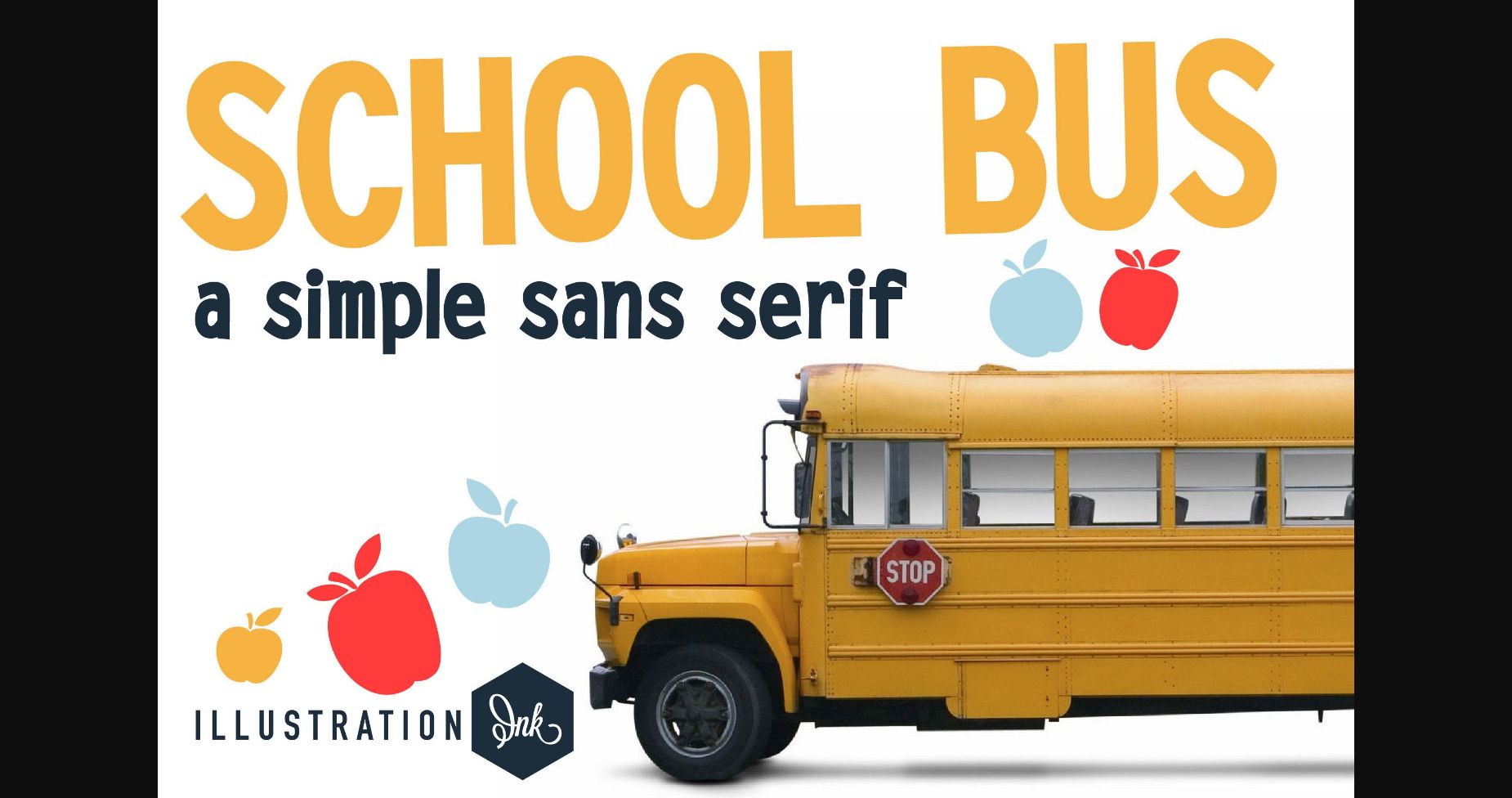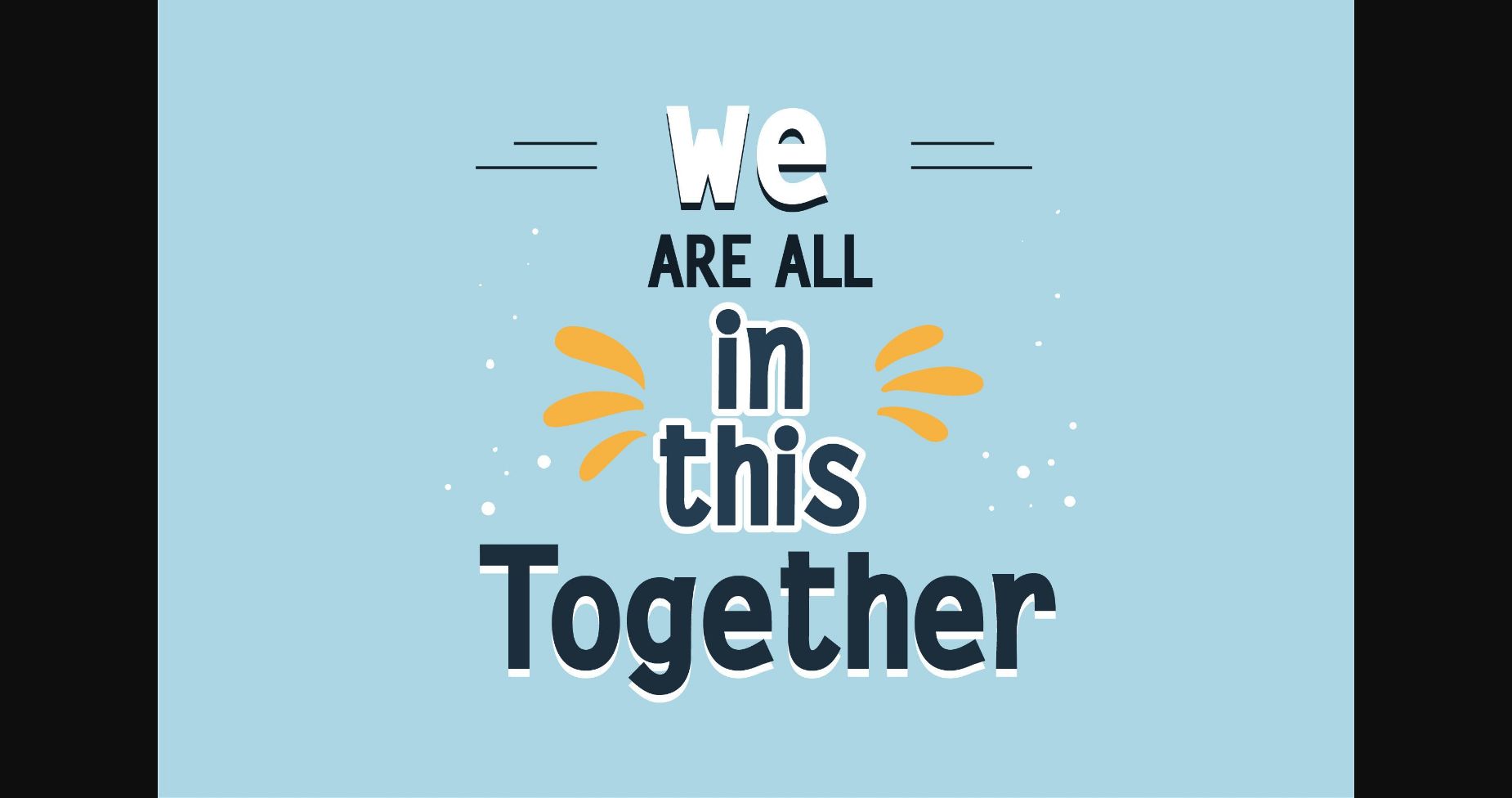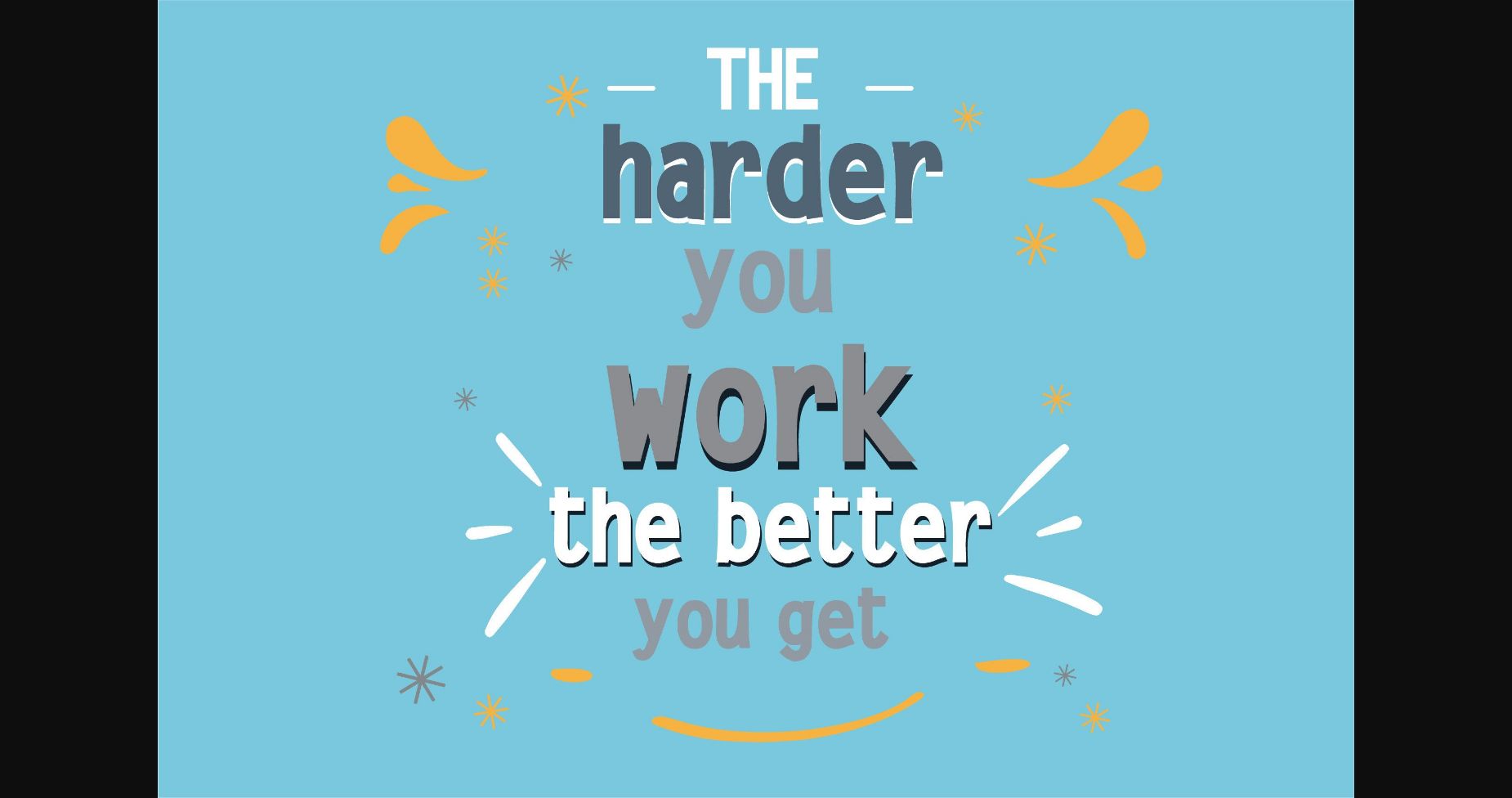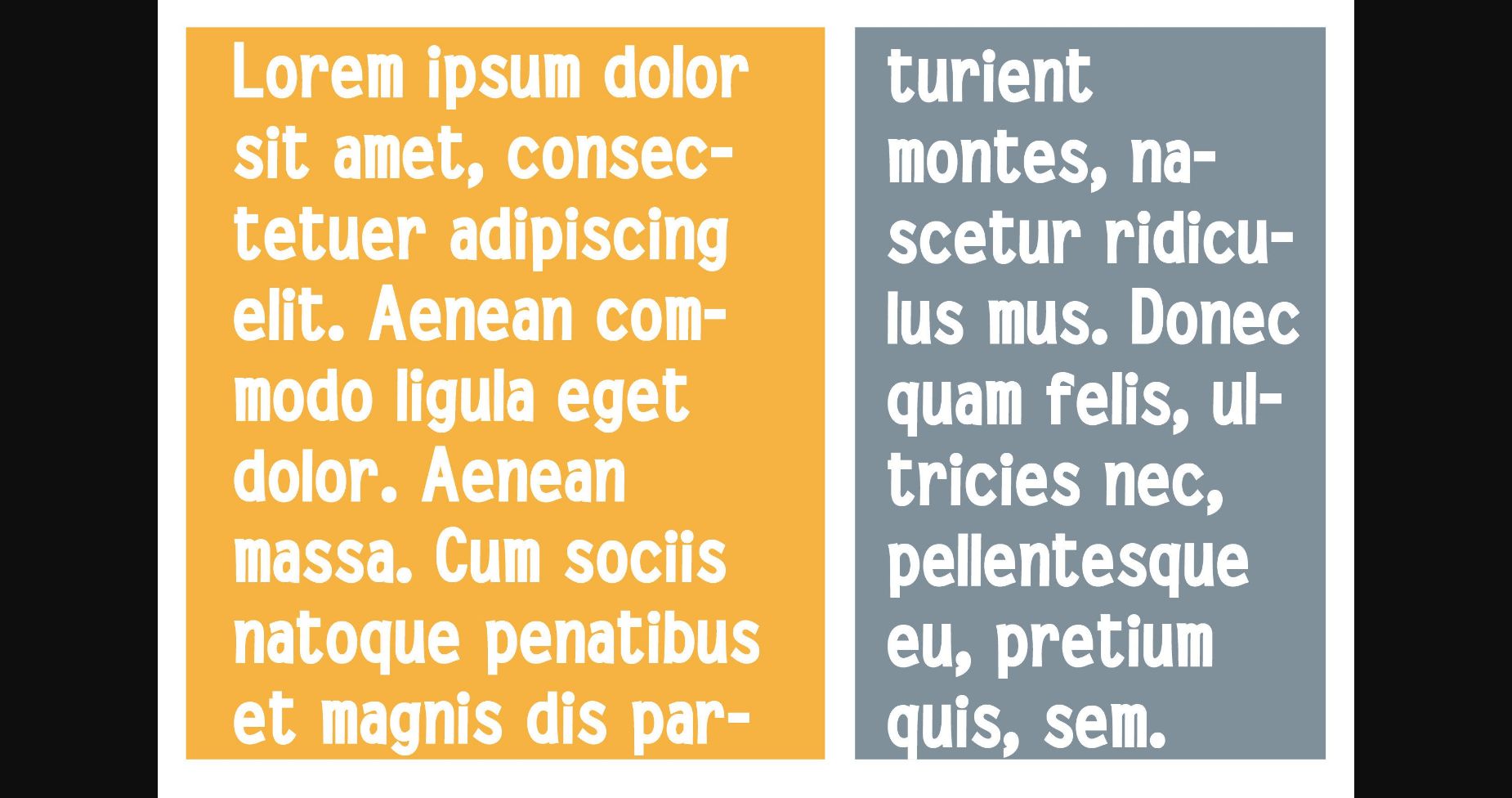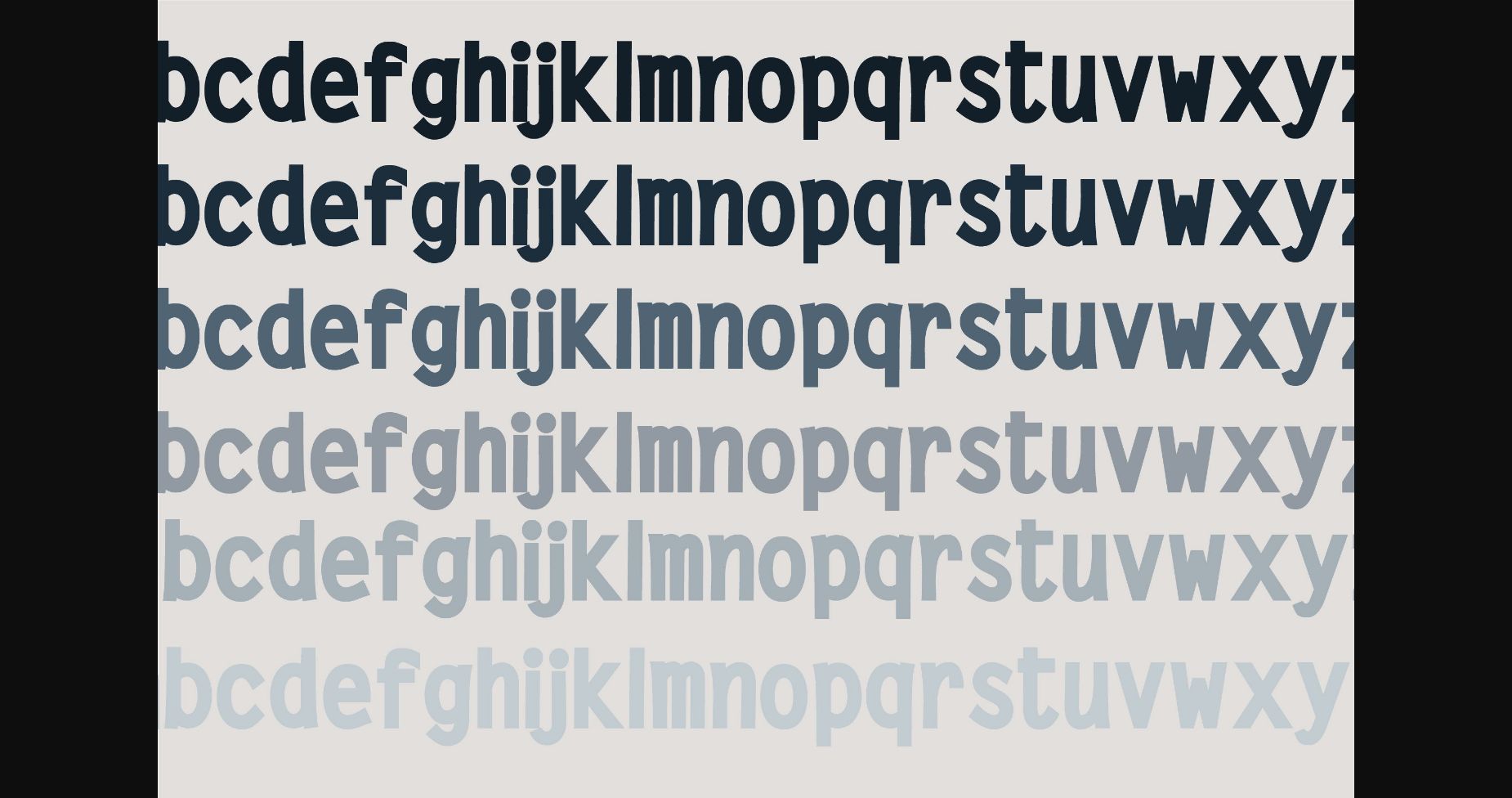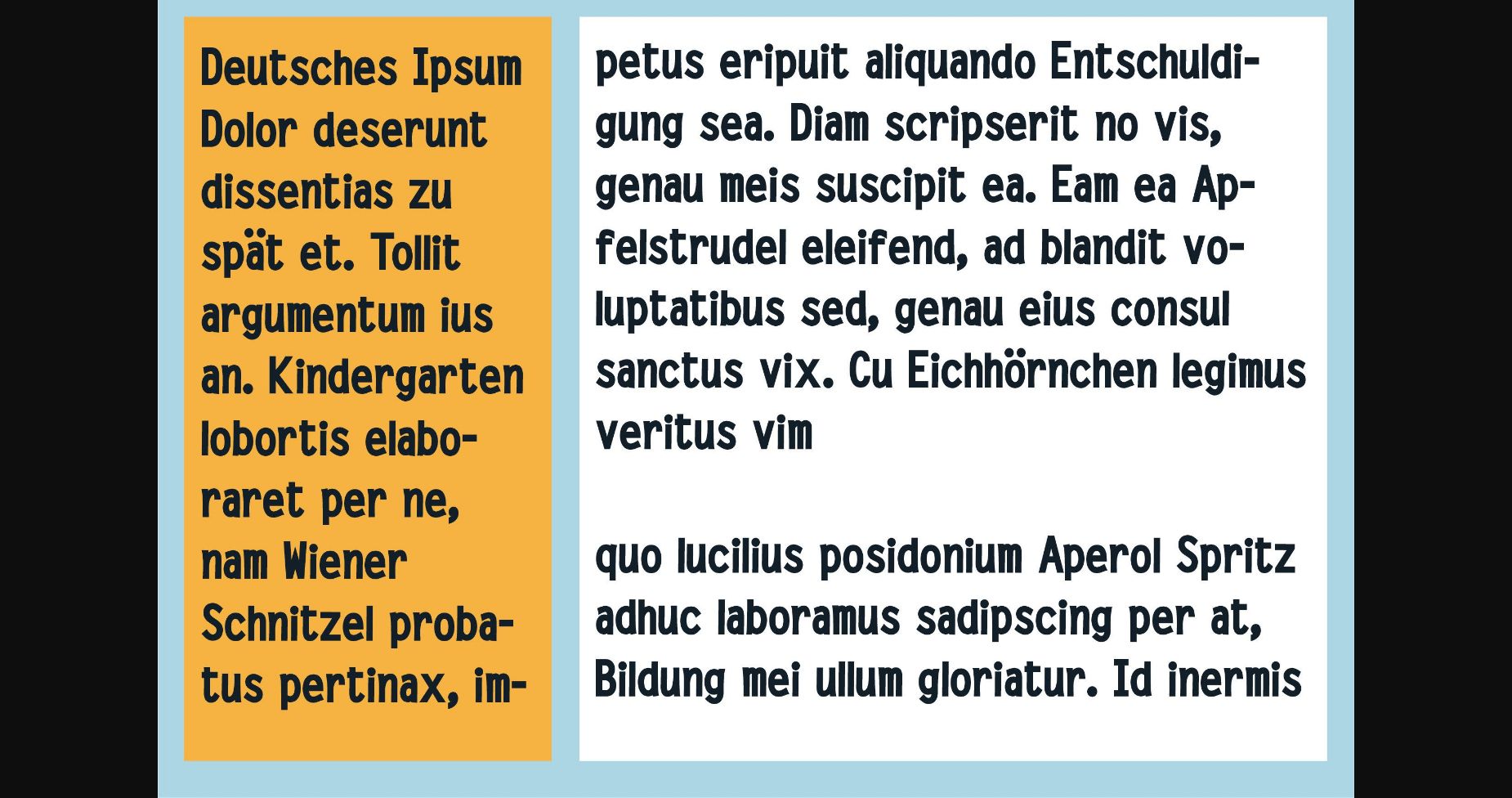
HomeSans Serif FontsSchool Bus Font Sans Serif Fonts School Bus Font FacebookXPinterestWhatsApp 1 of 9 ... School Bus Font Poster 2... School Bus Font Poster 3... School Bus Font Poster 4... School Bus Font Poster 5... School Bus Font Poster 6... School Bus Font Poster 7... School Bus Font Poster 8... School Bus Font Poster 9... About School Bus Font School Bus is a simple and neat sans serif font. Its casual charm makes it appear wonderfully down-to-earth, readable, and, ultimately, incredibly versatile. DOWNLOAD NOW People also explored Learning Everyday Font Eastgold Font Ovaline Font Catterpie Font Dharma Gothic C Skinny Joe Font Curious Font Bruce 1490 Blueberry Pie Font 417 0 TagsSchool Bus Font Previous articleBlink FontNext articleRoxy Ruler Font LEAVE A REPLY Cancel reply Comment: Please enter your comment! Name:* Please enter your name here Email:* You have entered an incorrect email address! Please enter your email address here Website: Save my name, email, and website in this browser for the next time I comment. Personal Use Free Lover Loves Personal Use Free Read more about this font Pelmeshka Personal Use Free Read more about this font Feather Script Personal Use Free Read more about this font Awkward Personal Use Free Read more about this font BLOG Free vs Paid Fonts: Why Investing in Premium Fonts Is Worth It Free vs Paid Fonts: Why Premium Fonts Are Worth It in 2025 The debate of free vs paid fonts continues in the design world. While... Exploring Font Trends Fonts That Capture the Spirit of New York City Where to Buy American Fonts Online in 2024